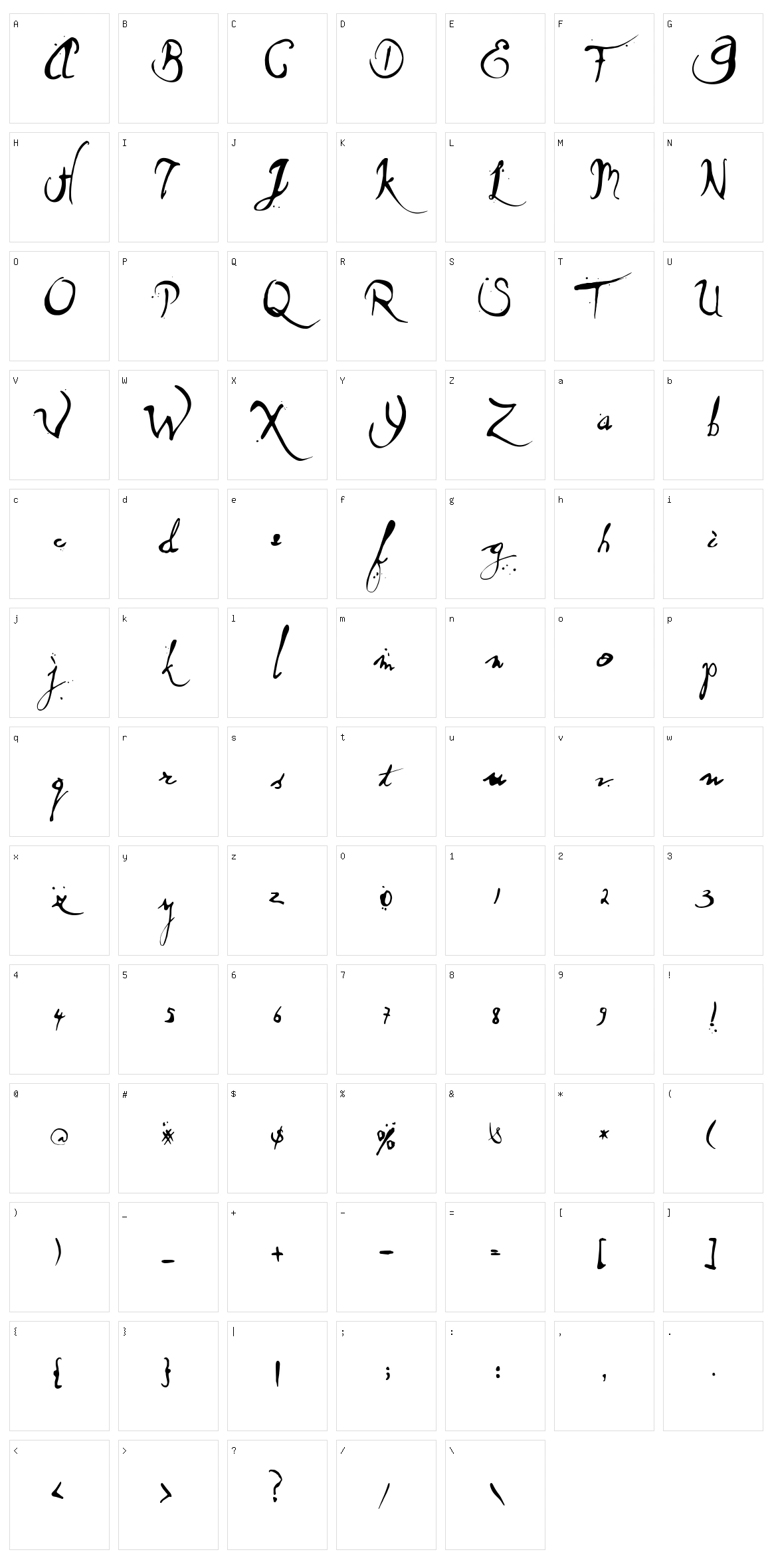
The free font Wet Dream is carefully designed by Hanoded, showcasing a thoughtful balance of creativity and usability and falls under the Trash font style. When you download the ZIP file, it contains only 69.69 KB of font files, making it lightweight and quick to download. Please review the license details below to understand permitted usage and distribution rights. If license information is not available, we recommend using this font for personal projects only or contacting the author directly for commercial usage permissions.